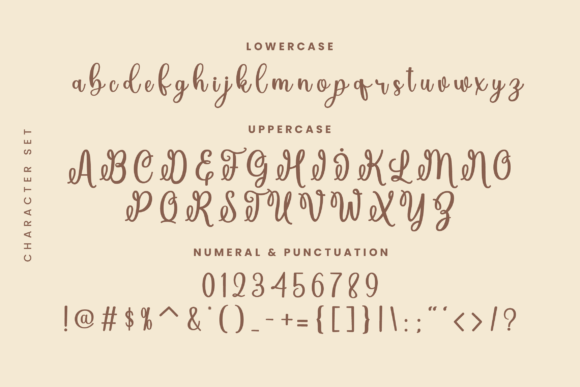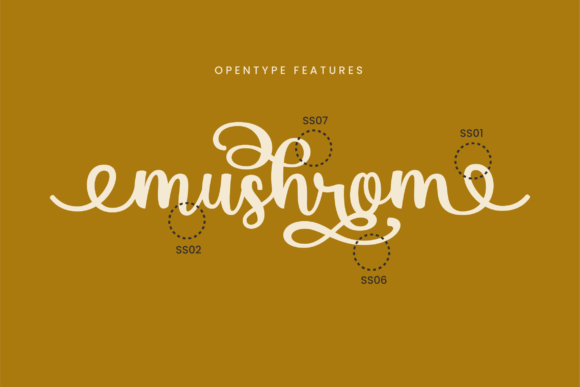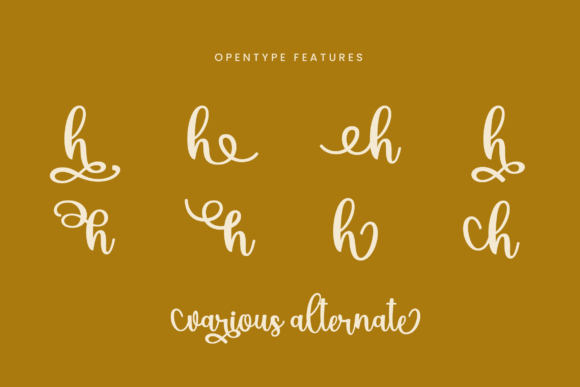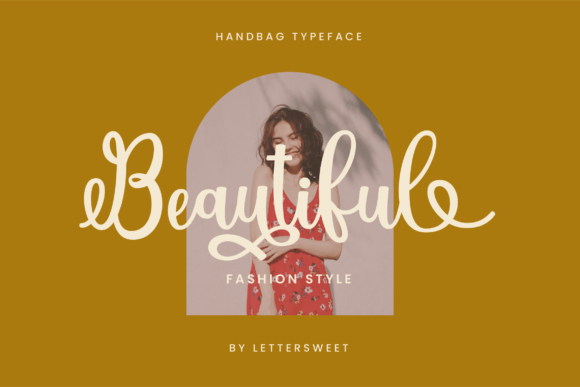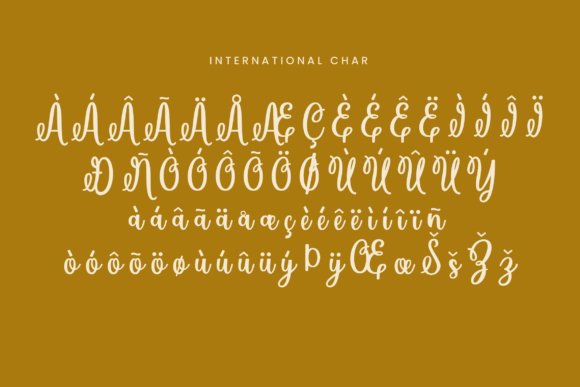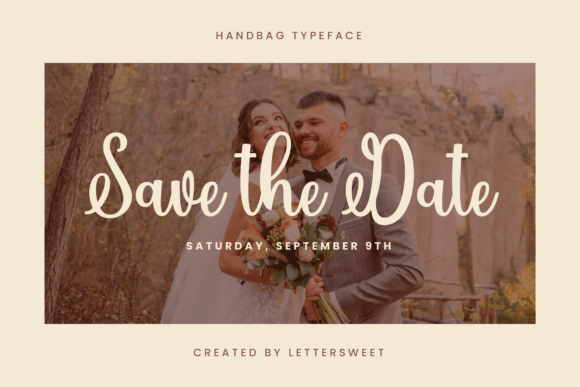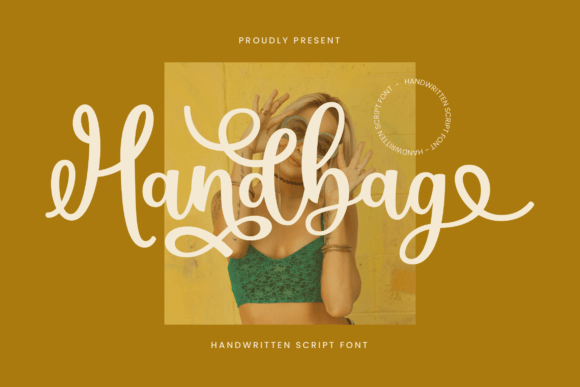
Introducing Handbag Font: Elevate Your Designs with Elegance and Flair
Are you a designer, crafter, or DIY enthusiast looking for the perfect font to add a touch of sophistication and whimsy to your projects? Look no further than Handbag Font, a delicate, elegant, and flowing handwritten font that’s sure to make your designs come alive. In this article, we’ll dive into the features and benefits of Handbag Font, and explore how it can elevate your creative projects.
A Beautifully Crafted Font
Handbag Font is a stunning example of a handwritten font, boasting beautiful and well-balanced characters that exude elegance and refinement. Its flowing lines and curves create a sense of movement and fluidity, making it perfect for designs that require a touch of sophistication. Whether you’re working on a branding project, a craft tutorial, or a DIY guide, Handbag Font is sure to add a level of polish and professionalism.
One of the standout features of Handbag Font is its versatility. With its well-balanced characters and flowing lines, it matches a wide pool of designs, from modern and minimalist to vintage and eclectic. Whether you’re creating a logo, a social media graphic, or a craft pattern, Handbag Font is sure to complement your design and add a touch of elegance.
Take Your Designs to the Next Level with Lowercase Alternates
What really sets Handbag Font apart is its inclusion of lowercase alternates. This feature allows you to create even more authentic, custom-feel text that adds a level of personality to your designs. With lowercase alternates, you can mix and match different letters to create a unique look that’s all your own. Whether you’re creating a handmade product label or a social media graphic, Handbag Font’s lowercase alternates give you the flexibility to add a personal touch.
Easy Access to Glyphs and Swashes
Handbag Font is PUA encoded, which means you can access all glyphs and swashes with ease. This feature makes it simple to add flourishes and embellishments to your text, taking your designs to the next level. With PUA encoding, you can unlock the full potential of Handbag Font and create designs that are truly unique and eye-catching.
Handbag Font is a must-have for designers and crafters who want to add a touch of elegance and sophistication to their projects. Whether you’re creating handmade products, crafting tutorials, or social media graphics, Handbag Font is the perfect choice. Its versatility, beauty, and ease of use make it an essential tool for anyone looking to elevate their designs.
Tips for Using Handbag Font
Here are a few tips for using Handbag Font in your designs:
- Use Handbag Font as a headline font to add a touch of elegance and sophistication to your designs.
- Pair Handbag Font with a bold font for a striking contrast.
- Experiment with lowercase alternates to add a personal touch to your text.
- Use Handbag Font’s glyphs and swashes to add flourishes and embellishments to your text.
| Font Name | Handbag Font |
| Author | Lettersweet |
Handbag Font is a beautiful, elegant, and flowing handwritten font that’s perfect for designers, crafters, and DIY enthusiasts. With its well-balanced characters, lowercase alternates, and PUA encoding, it’s the perfect choice for anyone looking to add a touch of sophistication and whimsy to their projects. Whether you’re creating handmade products, crafting tutorials, or social media graphics, Handbag Font is sure to elevate your designs and take them to the next level.